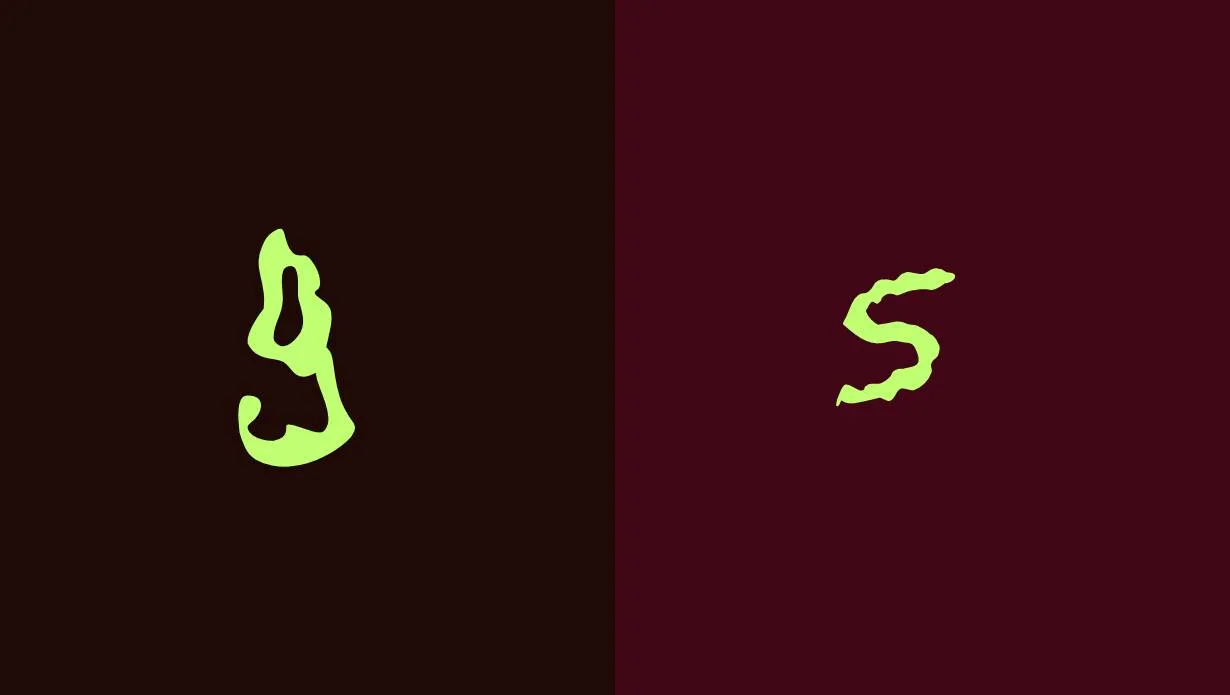
Get Schwifty Font is a playful and fun typeface, great for informal and lighthearted designs. It has fancy characters with scary vibes. This font has horror strokes that make it more popular. It is available in OTF and TTF file formats. It is accessible for Mac too.
This font is designed by a famous designer named Mr. Jonizaak. You can make the most of getting Schwifty Font by incorporating it into your designs with ease using Canva and Adobe Photoshop.
Get Schwifty Font Family